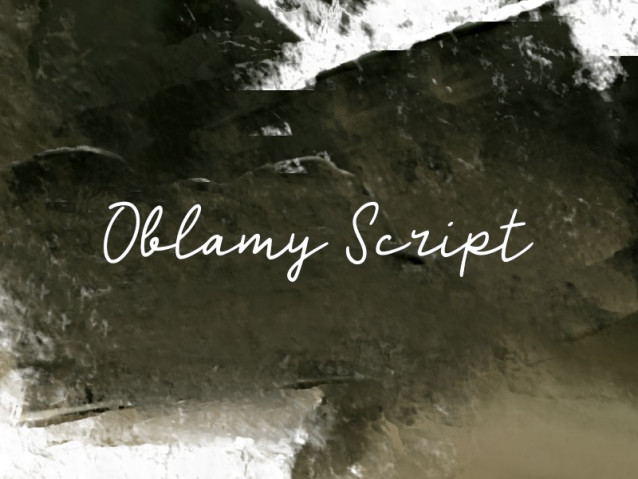
Oblamy Script Font
Oblamy Script Font is a simple and friendly handwritten font. Its natural and unique style makes it incredibly fitting to a large pool of designs. The only limit is your imagination!